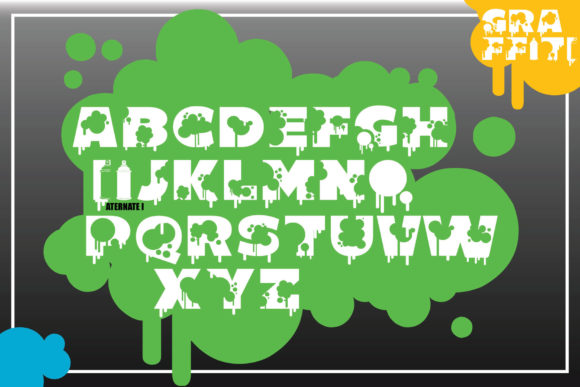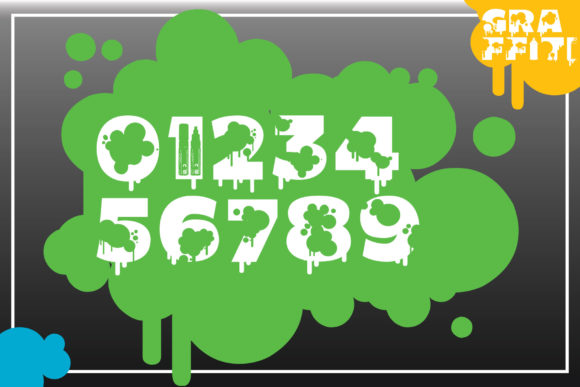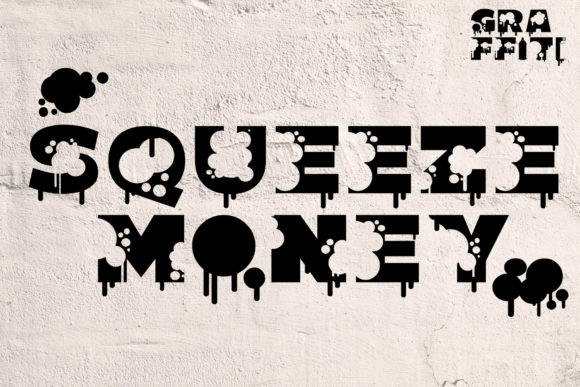
Unleash Your Creativity with Graffiti Font: The Ultimate Decorative Font for Designers and Crafters
Are you a designer or crafter looking for a font that can add a touch of personality and style to your projects? Look no further than Graffiti Font! This awesome decorative font is perfect for creating stunning posters, flyers, and prints that will grab attention and leave a lasting impression. In this article, we’ll explore the endless possibilities of Graffiti Font and how you can use it to take your designs to the next level.
What is Graffiti Font?
Graffiti Font is a unique and stylish decorative font that mimics the look of graffiti art. It’s characterized by its bold, colorful, and playful style, which is sure to add a touch of urban flair to any design. The font is highly versatile and can be used for a wide range of projects, from posters and flyers to logos and branding materials.
Why Use Graffiti Font?
So, why should you use Graffiti Font for your designs? Here are just a few reasons:
- Adds Personality and Style: Graffiti Font is a great way to add personality and style to your designs. Its bold and playful style is sure to make your projects stand out from the crowd.
- Highly Versatile: Graffiti Font can be used for a wide range of projects, from posters and flyers to logos and branding materials.
- Endless Possibilities: With Graffiti Font, the possibilities are endless. You can use it to create stunning posters, flyers, and prints, or experiment with different styles and techniques to create something truly unique.
Tips and Tricks for Using Graffiti Font
Here are some tips and tricks for using Graffiti Font:
- Use it for Headlines and Titles: Graffiti Font is perfect for headlines and titles. Use it to add a touch of personality and style to your designs.
- Experiment with Colors: Graffiti Font comes in a range of colors. Experiment with different colors to add depth and interest to your designs.
- Combine it with Other Fonts: Graffiti Font can be combined with other fonts to create a unique and stylish look.
- Use it for Logos and Branding: Graffiti Font can be used for logos and branding materials. Use it to create a bold and memorable brand identity.
Graffiti Font is an awesome decorative font that will look stunning on any poster, flyer, or print. With its bold, colorful, and playful style, it’s sure to add a touch of personality and style to your designs. Whether you’re a designer or crafter, Graffiti Font is a great choice for anyone looking to create stunning and eye-catching projects. So why not give it a try and see what amazing designs you can create?
Graffiti is an awesome decorative font that will look stunning on any poster flyer or print. Use this font for your designs and explore its endless possibilities.